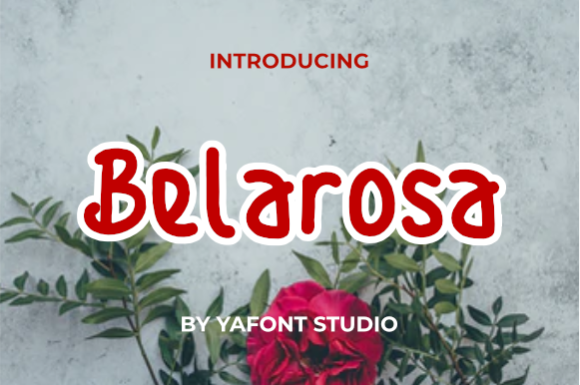
Introducing Belarosa Font: The Sweet and Friendly Handwritten Font for Your Creative Projects
Are you a designer, crafter, or DIY enthusiast looking for a font that can add a personal touch to your creative projects? Look no further than Belarosa Font, a sweet and friendly handwritten font that is perfect for a wide range of designs. With its natural and unique style, Belarosa Font is incredibly versatile and can be used for everything from greeting cards and invitations to branding and advertising materials.
The Characteristics of Belarosa Font
Belarosa Font is a handwritten font that exudes warmth and friendliness. Its natural and unique style makes it stand out from more traditional fonts, and its sweetness and charm make it perfect for designs that require a personal touch. The font has a distinctive, hand-crafted feel that gives it a human touch, making it ideal for designers and crafters who want to add a bit of personality to their work.
The Benefits of Using Belarosa Font
So why choose Belarosa Font for your creative projects? Here are just a few benefits of using this versatile font:
- Versatility: Belarosa Font is incredibly versatile and can be used for a wide range of designs, from formal and informal documents to digital and print materials.
- Uniqueness: The font’s natural and unique style makes it stand out from more traditional fonts, ensuring that your designs will be noticed.
- Friendliness: Belarosa Font has a warm and friendly feel that makes it perfect for designs that require a personal touch.
- Ease of use: The font is easy to read and use, making it perfect for designers and crafters of all skill levels.
How to Use Belarosa Font in Your Designs
Belarosa Font is easy to use and can be incorporated into your designs in a variety of ways. Here are a few ideas to get you started:
- Greeting cards and invitations: Use Belarosa Font to add a personal touch to your greeting cards and invitations.
- Branding and advertising: The font’s unique style makes it perfect for branding and advertising materials, such as logos, brochures, and flyers.
- Digital materials: Belarosa Font can be used for digital materials, such as social media graphics, blog posts, and email newsletters.
- Crafting projects: The font is perfect for crafters who want to add a personal touch to their projects, such as scrapbooking, journaling, and card making.
Tips for Getting the Most Out of Belarosa Font
Here are a few tips for getting the most out of Belarosa Font:
- Experiment with different sizes and colors: Belarosa Font looks great in a variety of sizes and colors, so don’t be afraid to experiment and find the combination that works best for your design.
- Pair it with other fonts: Belarosa Font can be paired with other fonts to create a unique and interesting look.
- Use it consistently: To create a cohesive look, use Belarosa Font consistently throughout your design.
Belarosa Font is a sweet and friendly handwritten font that is perfect for designers, crafters, and DIY enthusiasts who want to add a personal touch to their creative projects. With its natural and unique style, Belarosa Font is incredibly versatile and can be used for a wide range of designs. Whether you’re creating greeting cards, branding materials, or digital content, Belarosa Font is sure to make your designs stand out. So why wait? Download Belarosa Font today and start creating your own unique and beautiful designs!